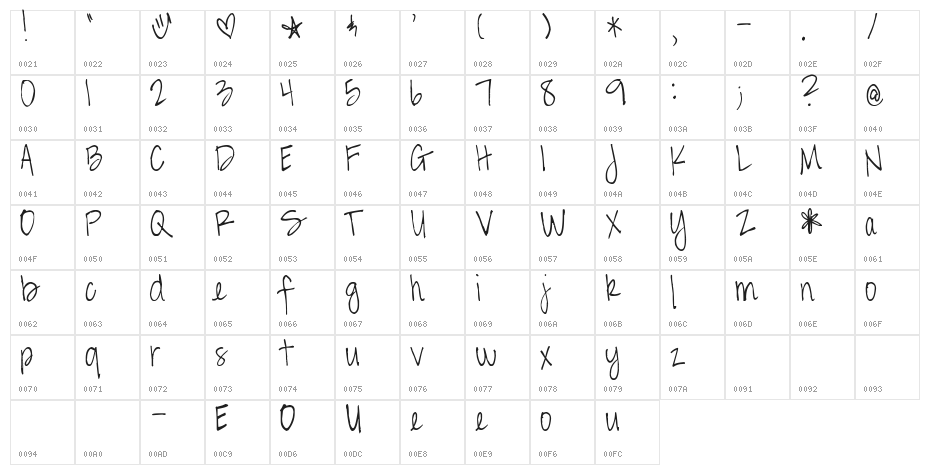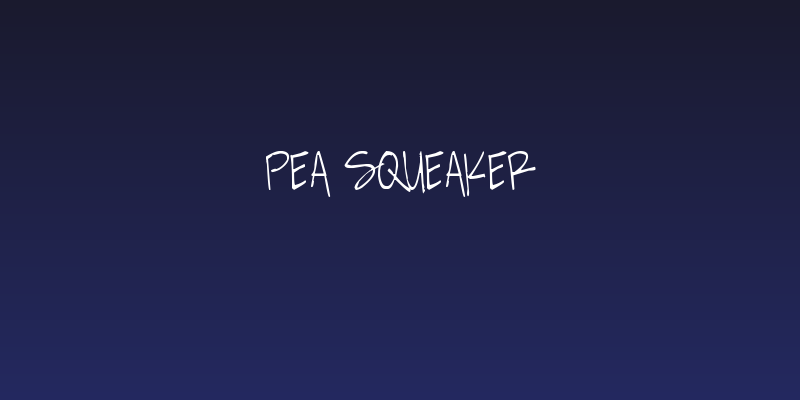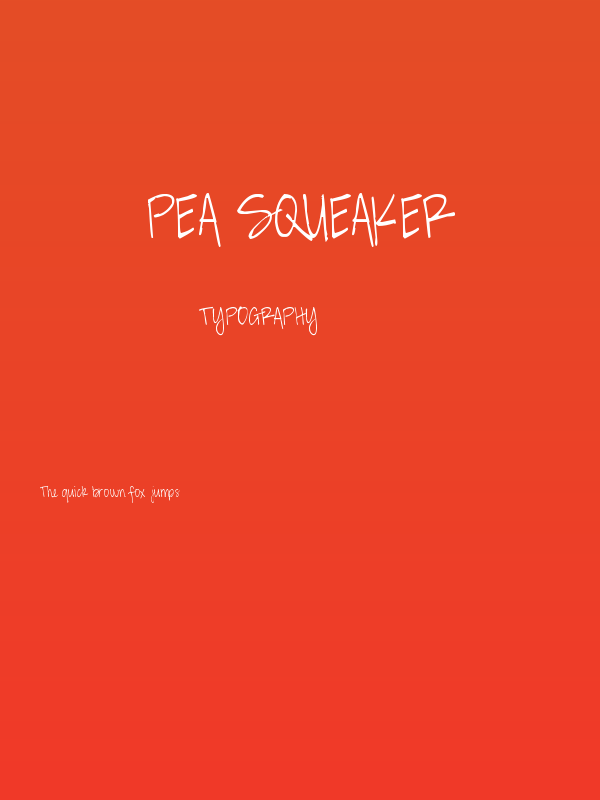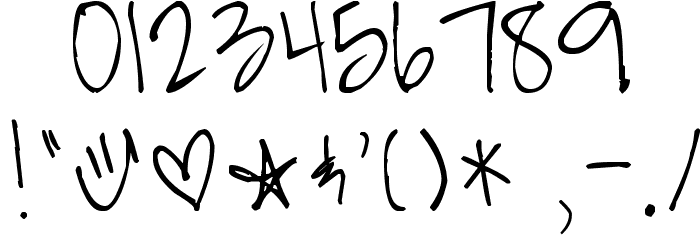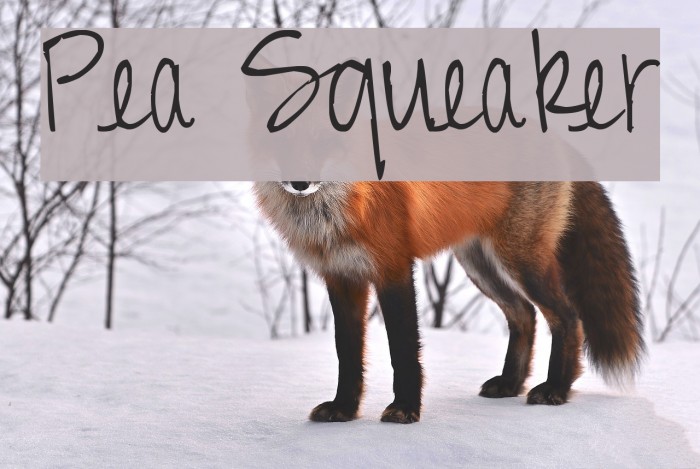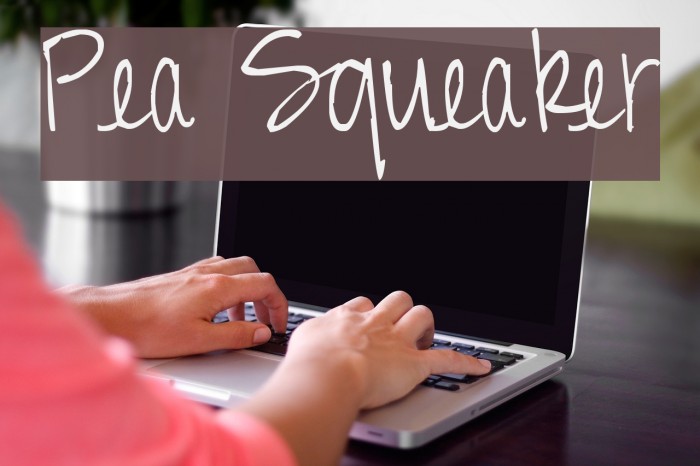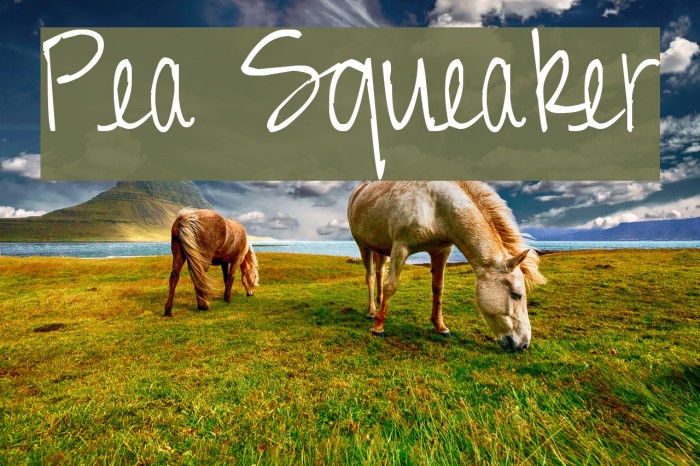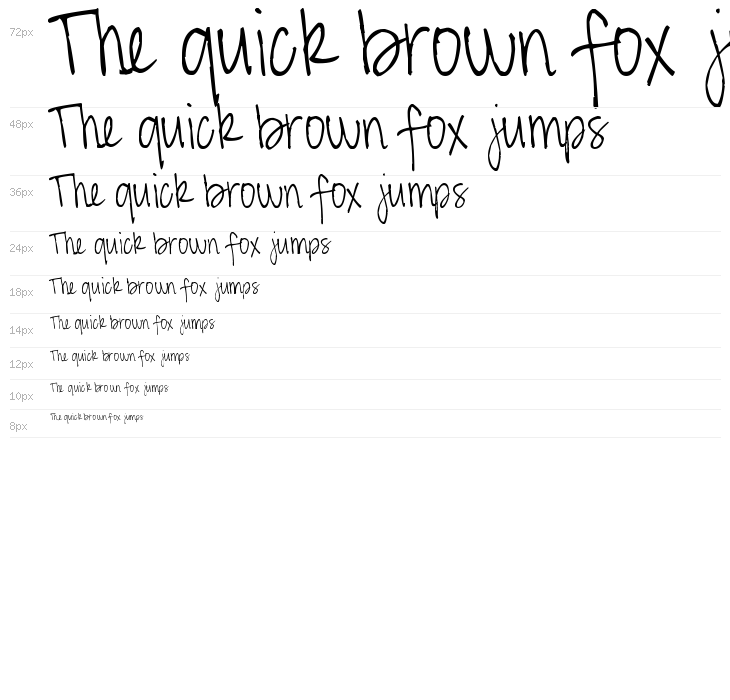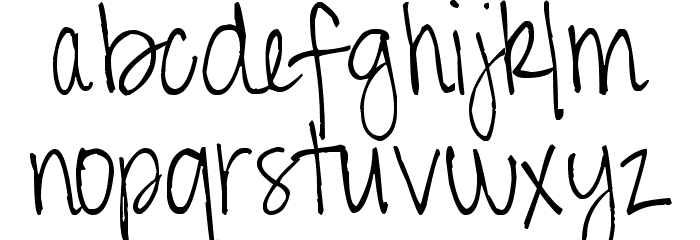
Pea Squeaker Font
Pea Squeaker Description
This playful and energetic handwritten font features a casual and informal style, characterized by its loose and free-flowing strokes. The letters vary in height and angle, giving it a dynamic and spontaneous appearance. The uppercase and lowercase letters are distinct, with a whimsical touch that adds personality to each character. The numbers and special characters maintain the same lively aesthetic, making the font suitable for creative and fun projects. Its overall look is approachable and friendly, perfect for conveying a sense of warmth and creativity.
| Overall Style | Playful |
| Use Case | Logos, Headlines, Informal Invitations |
| Proposed Projects | Ideal for greeting cards, children's books, playful branding, and creative social media graphics. |